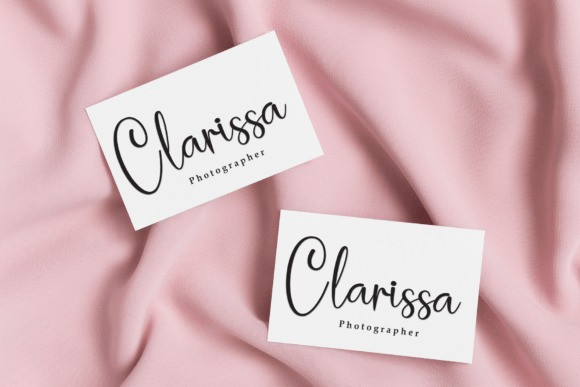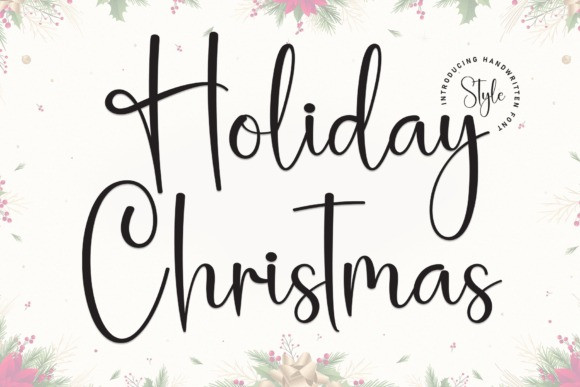
Holiday Christmas Font
Holiday Christmas Font is a charming handwritten font that exudes festive warmth and whimsy. With its graceful strokes and playful curves, this font adds a touch of holiday cheer to your projects. Perfect for greeting cards, invitations, or any design that calls for a dash of festive flair, Holiday Christmas captures the spirit of the season in every stroke.